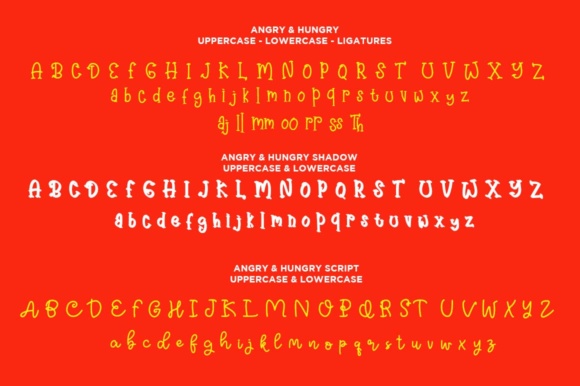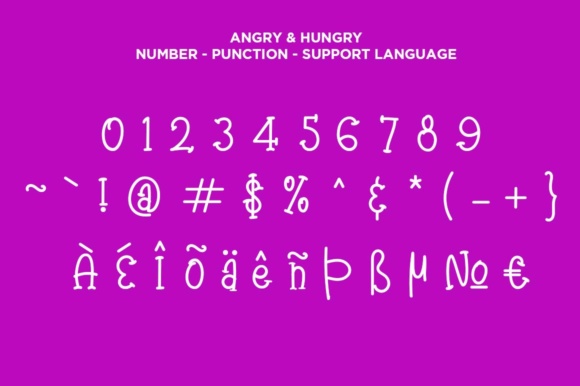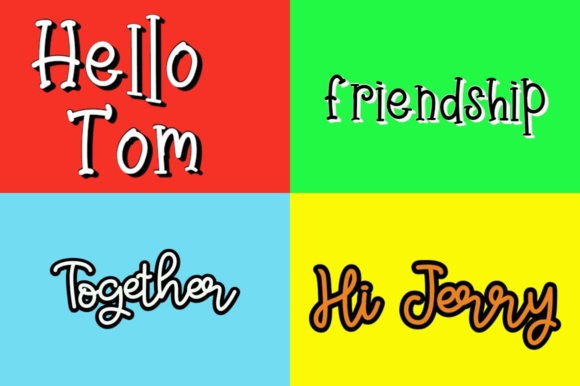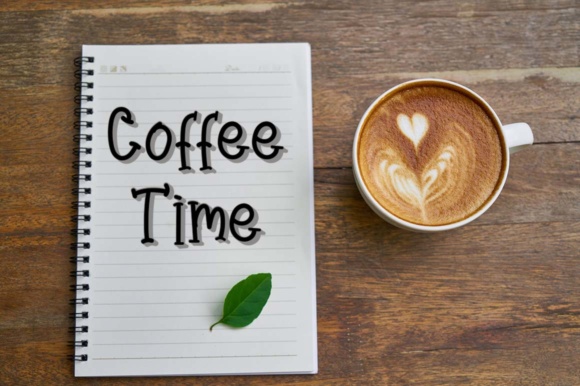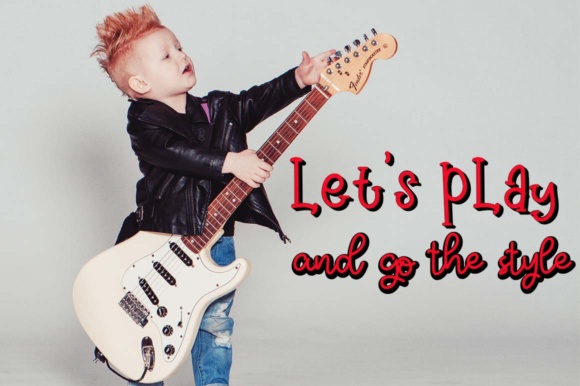
Discover the Delightful Angry & Hungry Font: A Fun and Versatile Font Family
Are you tired of using the same old fonts in your designs? Look no further than the Angry & Hungry font, a cute and playful font family that’s sure to add a touch of whimsy to your projects. With its fun feel and four different styles, this font is perfect for designers and crafters looking to add some personality to their work.
What is the Angry & Hungry Font?
The Angry & Hungry font is a charming font family that’s designed to bring a smile to your face. Its fun and playful feel makes it perfect for a wide range of projects, from invitations and greeting cards to posters and social media graphics. The font comes in four different styles: regular, shadow, script, and script shadow, giving you plenty of options to choose from.
Key Features of the Angry & Hungry Font
- Four different styles: The Angry & Hungry font comes in four different styles: regular, shadow, script, and script shadow. This gives you plenty of options to choose from, depending on the look and feel you want to achieve.
- Cute and playful feel: The Angry & Hungry font has a fun and playful feel that’s sure to add a touch of whimsy to your designs.
- Perfect for designers and crafters: Whether you’re a designer or crafter, the Angry & Hungry font is a great choice for anyone looking to add some personality to their work.
Uses for the Angry & Hungry Font
The Angry & Hungry font is versatile and can be used for a wide range of projects, including:
- Invitations and greeting cards: The Angry & Hungry font is perfect for creating fun and playful invitations and greeting cards.
- Posters and social media graphics: The font’s bold and playful feel makes it a great choice for posters and social media graphics.
- Crafting projects: The Angry & Hungry font is also a great choice for crafters, and can be used for a variety of projects, such as scrapbooking and DIY signs.
Why Choose the Angry & Hungry Font?
There are many reasons why you might choose the Angry & Hungry font for your next project. Here are just a few:
- Unique and eye-catching: The Angry & Hungry font is a unique and eye-catching choice that’s sure to stand out from the crowd.
- Easy to read: Despite its playful feel, the Angry & Hungry font is easy to read, making it a great choice for body text as well as headlines.
- Versatile: The font’s versatility makes it a great choice for a wide range of projects, from formal to informal.
Tips for Using the Angry & Hungry Font
Here are a few tips for getting the most out of the Angry & Hungry font:
- Use it sparingly: While the Angry & Hungry font is playful and fun, it can be overwhelming if used too much. Use it sparingly to add a touch of whimsy to your designs.
- Experiment with different styles: The Angry & Hungry font comes in four different styles, so don’t be afraid to experiment to find the one that works best for your project.
- Pair it with other fonts: The Angry & Hungry font pairs well with other fonts, so don’t be afraid to combine it with other fonts to create a unique look.
The Angry & Hungry font is a fun and versatile font family that’s perfect for designers and crafters looking to add some personality to their work. With its four different styles and playful feel, it’s a great choice for a wide range of projects. Whether you’re creating invitations, posters, or crafting projects, the Angry & Hungry font is sure to bring a smile to your face.